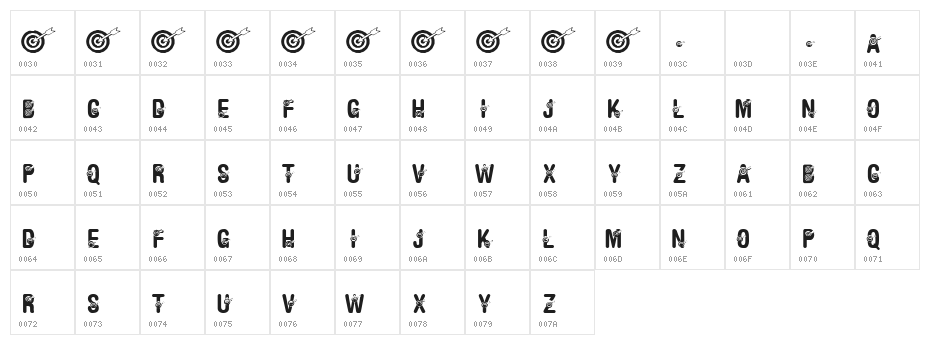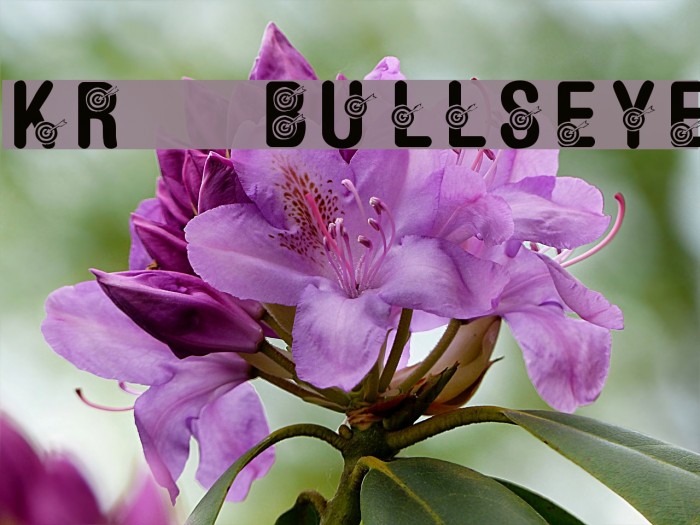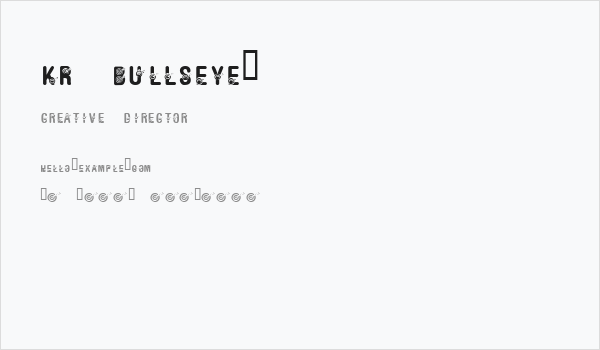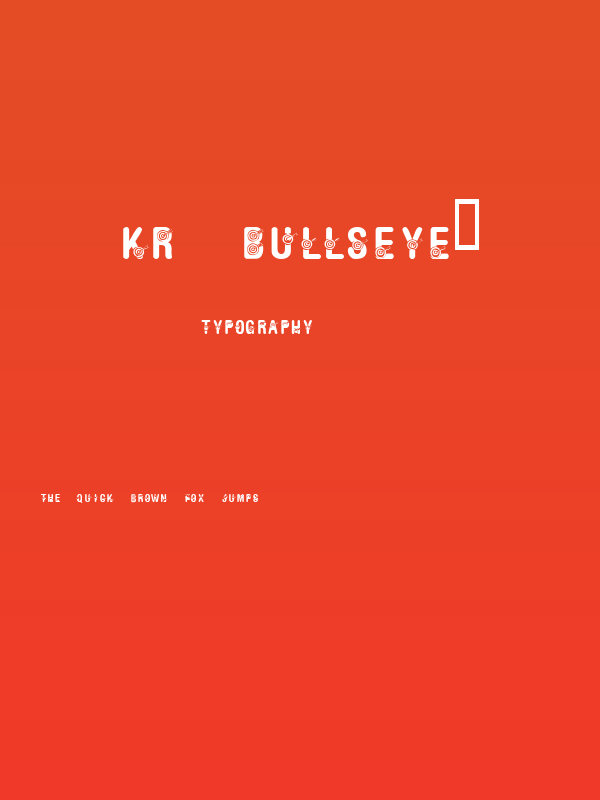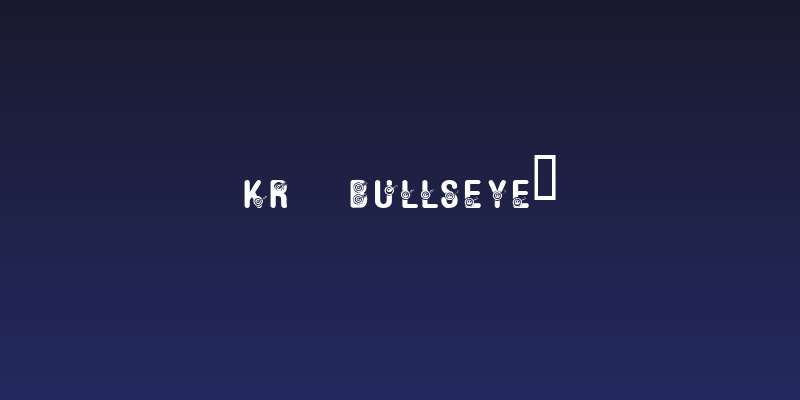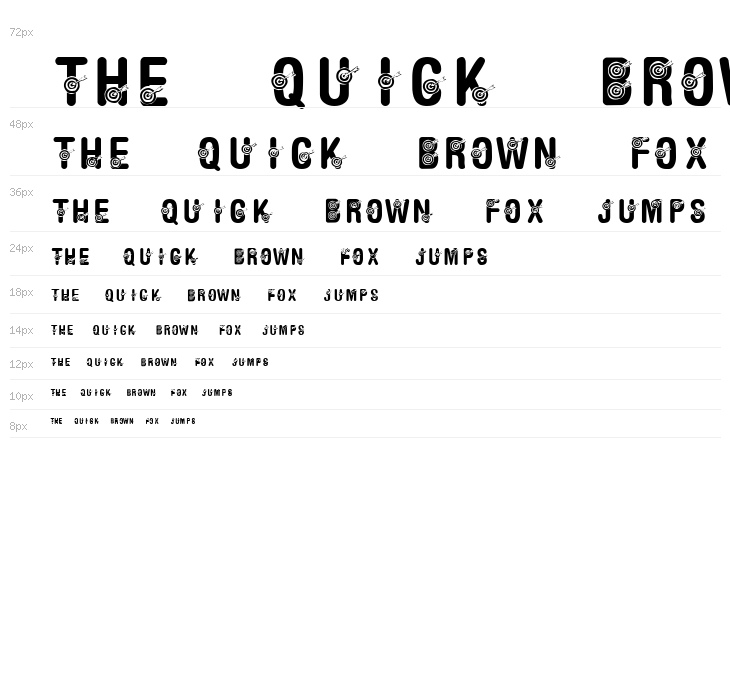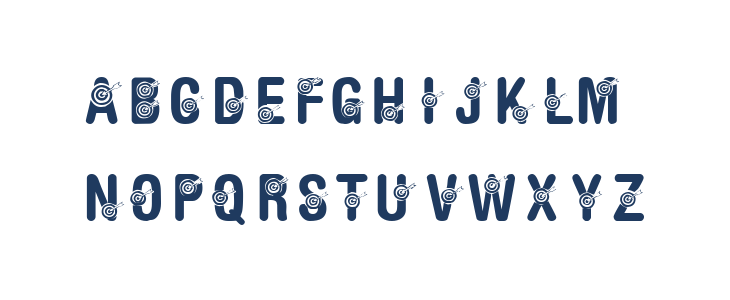
KR Bullseye! Font
KR Bullseye! Description
This playful and bold decorative font features a unique bullseye motif integrated into each character, giving it a distinct and eye-catching appearance. The design is characterized by thick, rounded letterforms that are both fun and engaging, making it ideal for creative and informal projects. The bullseye elements add a whimsical touch, making the font suitable for themes related to games, sports, or entertainment. Its boldness ensures high visibility, while the rounded edges soften the overall look, balancing playfulness with readability.
| Overall Style | Playful, Fun, Whimsical |
| Proposed Projects | Ideal for game titles, sports event posters, children's book covers, and playful branding. |